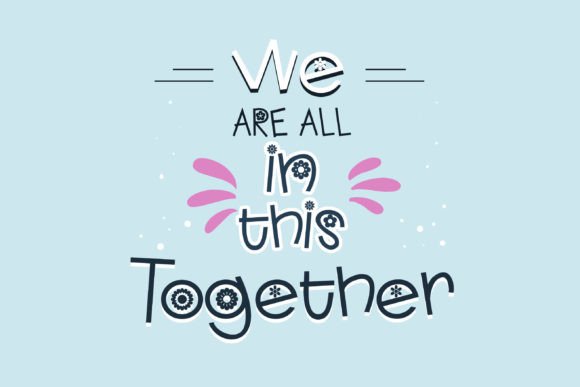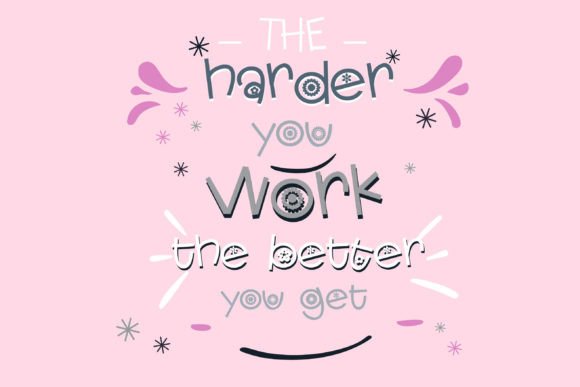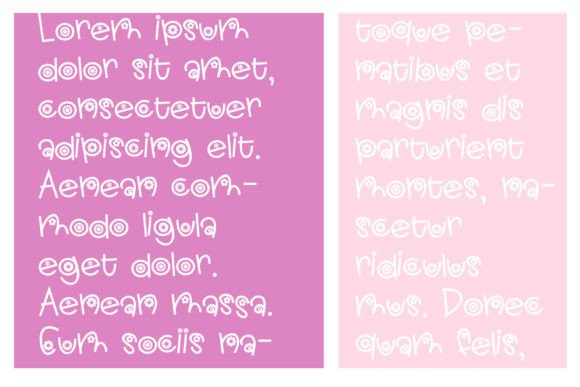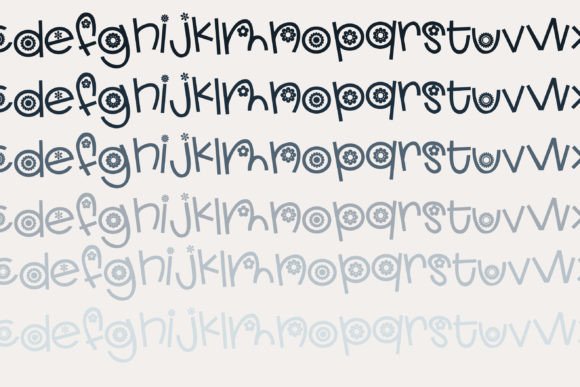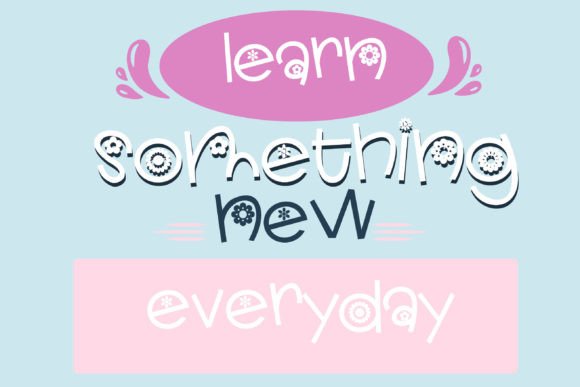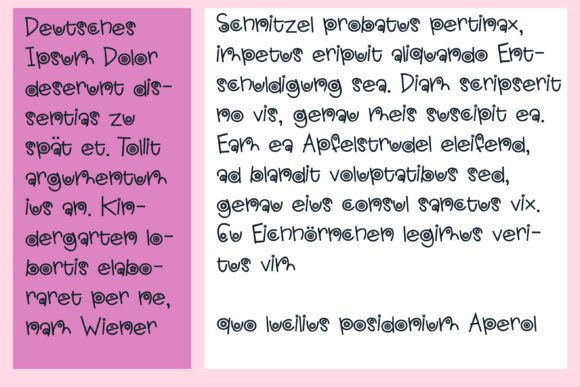
Cutesie Bloom Font: Add a Touch of Whimsy to Your Designs
Are you looking for a font that can add a dash of cuteness to your designs? Look no further than the Cutesie Bloom Font! This hand-written sans serif font is whimsical, playful, and sports adorable flowers throughout, making it perfect for a wide range of creative projects. In this article, we’ll take a closer look at the Cutesie Bloom Font, its features, and how you can use it to make your designs truly special.
What is Cutesie Bloom Font?
Cutesie Bloom Font is a unique, hand-written sans serif font that is designed to bring a touch of whimsy and playfulness to your designs. The font features beautiful, intricate flowers throughout, giving it a charming and feminine feel. The letters are carefully crafted to be both elegant and fun, making it perfect for a wide range of applications, from posters and greeting cards to t-shirts and branding materials.
Key Features of Cutesie Bloom Font
- Hand-written sans serif font: Cutesie Bloom Font has a personal, hand-written feel that sets it apart from more traditional fonts.
- Whimsical and playful: The font features intricate flowers and playful lettering, making it perfect for designs that need a touch of whimsy.
- Perfect for crafty projects: Cutesie Bloom Font is ideal for crafty projects like posters, greeting cards, t-shirts, and more.
- Easy to read: Despite its playful feel, Cutesie Bloom Font is easy to read, making it perfect for quotes, sayings, and other text-based designs.
Uses for Cutesie Bloom Font
Cutesie Bloom Font is a versatile font that can be used in a wide range of creative projects. Here are some ideas to get you started:
- Posters: Create eye-catching posters for events, promotions, or just for fun using Cutesie Bloom Font.
- Greeting cards: Add a personal touch to your greeting cards with this beautiful, hand-written font.
- T-shirts and apparel: Create custom t-shirts, hoodies, and other apparel with Cutesie Bloom Font for a unique and playful look.
- Branding materials: Use Cutesie Bloom Font to create custom branding materials like business cards, brochures, and more.
- Quotes and sayings: Create inspiring quotes and sayings using Cutesie Bloom Font to add a touch of whimsy to your designs.
Tips for Using Cutesie Bloom Font
Here are some tips for getting the most out of Cutesie Bloom Font:
- Experiment with colors: Cutesie Bloom Font looks great in a variety of colors, so don’t be afraid to experiment and find the perfect hue for your design.
- Mix and match: Combine Cutesie Bloom Font with other fonts to create a unique and eye-catching design.
- Play with sizes: Experiment with different font sizes to add emphasis and create visual interest in your design.
- Add graphics: Cutesie Bloom Font pairs perfectly with graphics and illustrations, so don’t be afraid to add some extra visual elements to your design.
Cutesie Bloom Font is a unique and versatile font that can add a touch of whimsy and playfulness to your designs. With its hand-written sans serif style, intricate flowers, and easy-to-read letters, it’s perfect for a wide range of creative projects. Whether you’re a designer, crafter, or just someone who loves to create, Cutesie Bloom Font is sure to become a favorite in your font collection. So why wait? Download Cutesie Bloom Font today and start creating your own adorable designs!